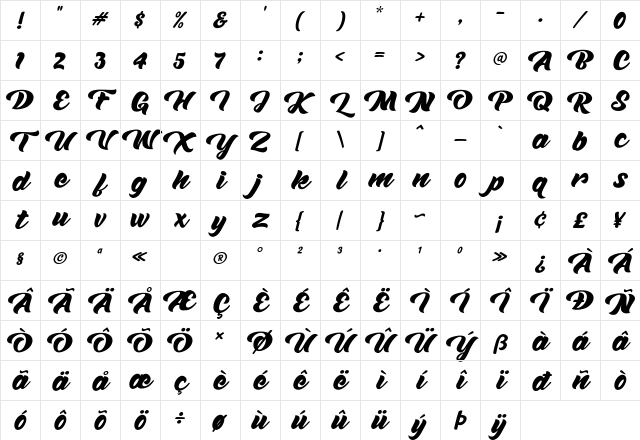
Tahu Bullats is a composed and adaptable typeface that performs quietly and consistently across a wide range of design contexts. The slanted form adds forward momentum and visual energy.
Pro Tip: Use Tahu Bullats for emphasis, pull quotes, and subheadings where its slanted energy can add rhythm to the layout.